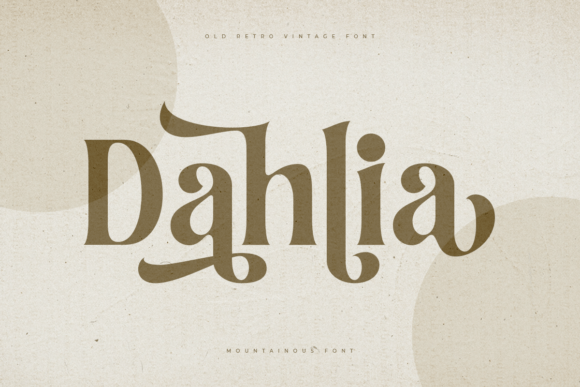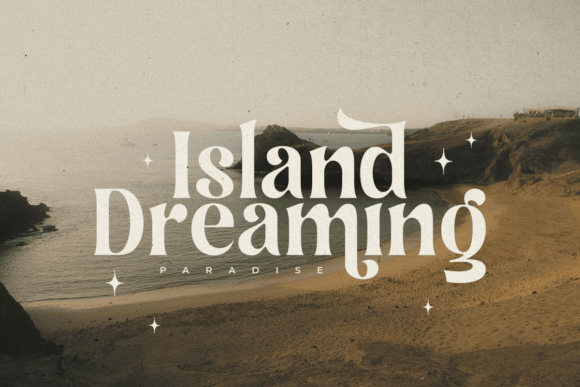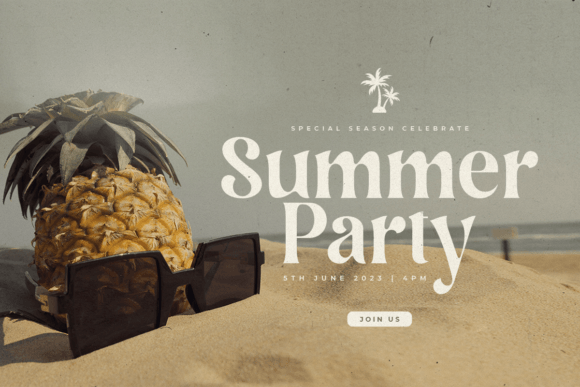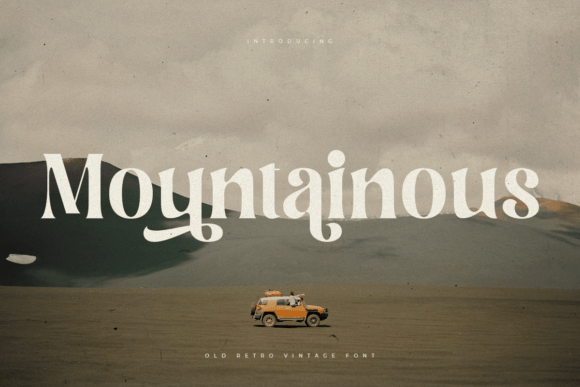
Introduction to Montainous Font
Montainous is an Old Retro Vintage Font An Old Retro Vintage font that is specially created with Display style for the Headline Vintage Retro Project, Unique branding needs, with extra alternates in a unique style that are ready to add value to your brand.
It’s so nice to leverage designers or product owners who need solutions to make their designs look more unique and vintage .
Why Choose Montainous Font?
Montainous Font offers exceptional quality and versatility, making it a valuable addition to your design toolkit. Whether you’re creating for personal projects or commercial use, Montainous Font delivers professional results.